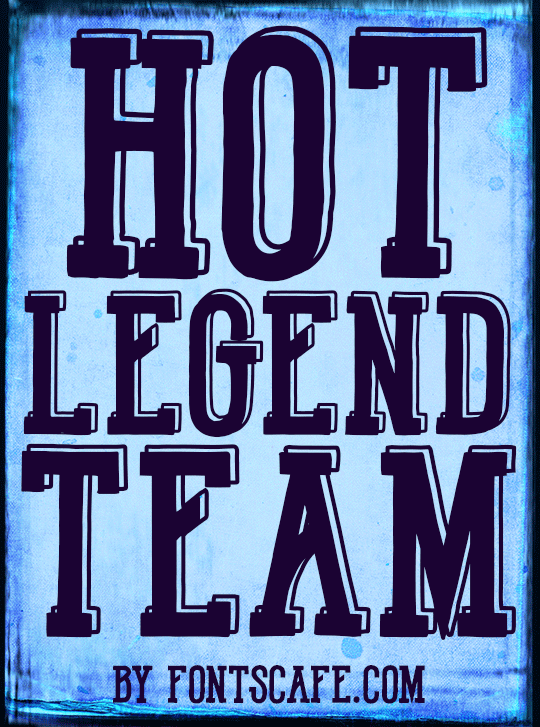
Preview and download Hot Legend Team Font. Created by Fontscafe.com in Fancy Old School styles with Demo license.
A legend, someone who made his/her way on a specific field. A bold, strong identity with character that with dedication and stamina reached the top. These are the features showed with this College style font. To see the whole set of characters check out this page https://fontscafe.com/font/hot-legend-team-font. If you're looking for some more College styles or simply a different flavor of it, just take a look to the whole "Ultimate College Team" Pack http://fontscafe.com/font/ultimate-college-team-pack where the "College style" is developed in a serie of variants all combined with that solid and steady character that the classic College Style always evokes. Terms of Use (short version): It's okay to use this DEMO version of our "Hot Legend Team" font for personal, non-commercial uses like designing greeting cards, invitations, labels, posters and even to create graphics for your personal blog. HOWEVER, if you decide to use this, or any other Fonts Caf� font for your business, please purchase a license: the prices are fair and you will be supporting a small, nice and independent font company. :) The typefaces we design and sell on our secure website are our livelihood. |